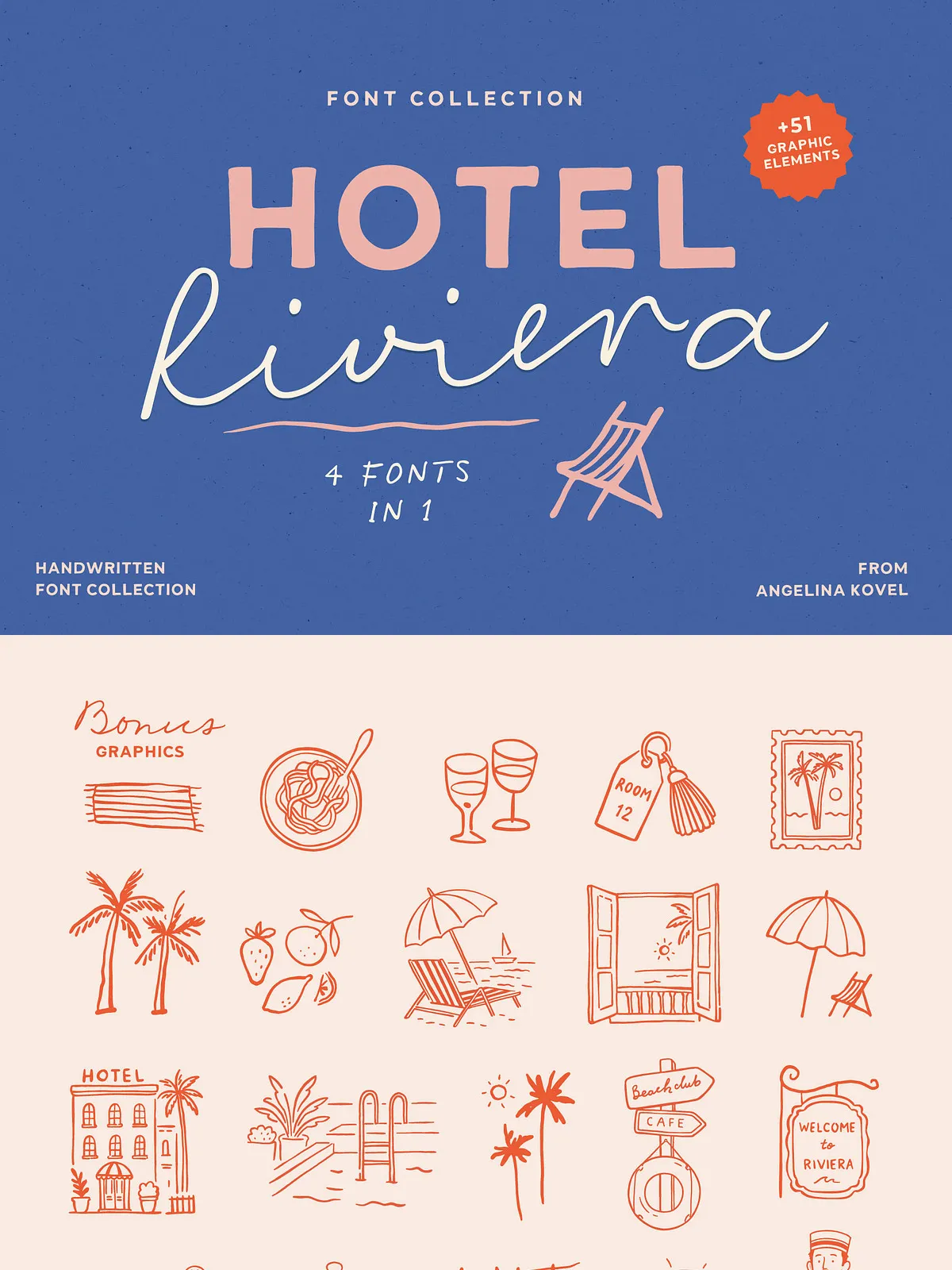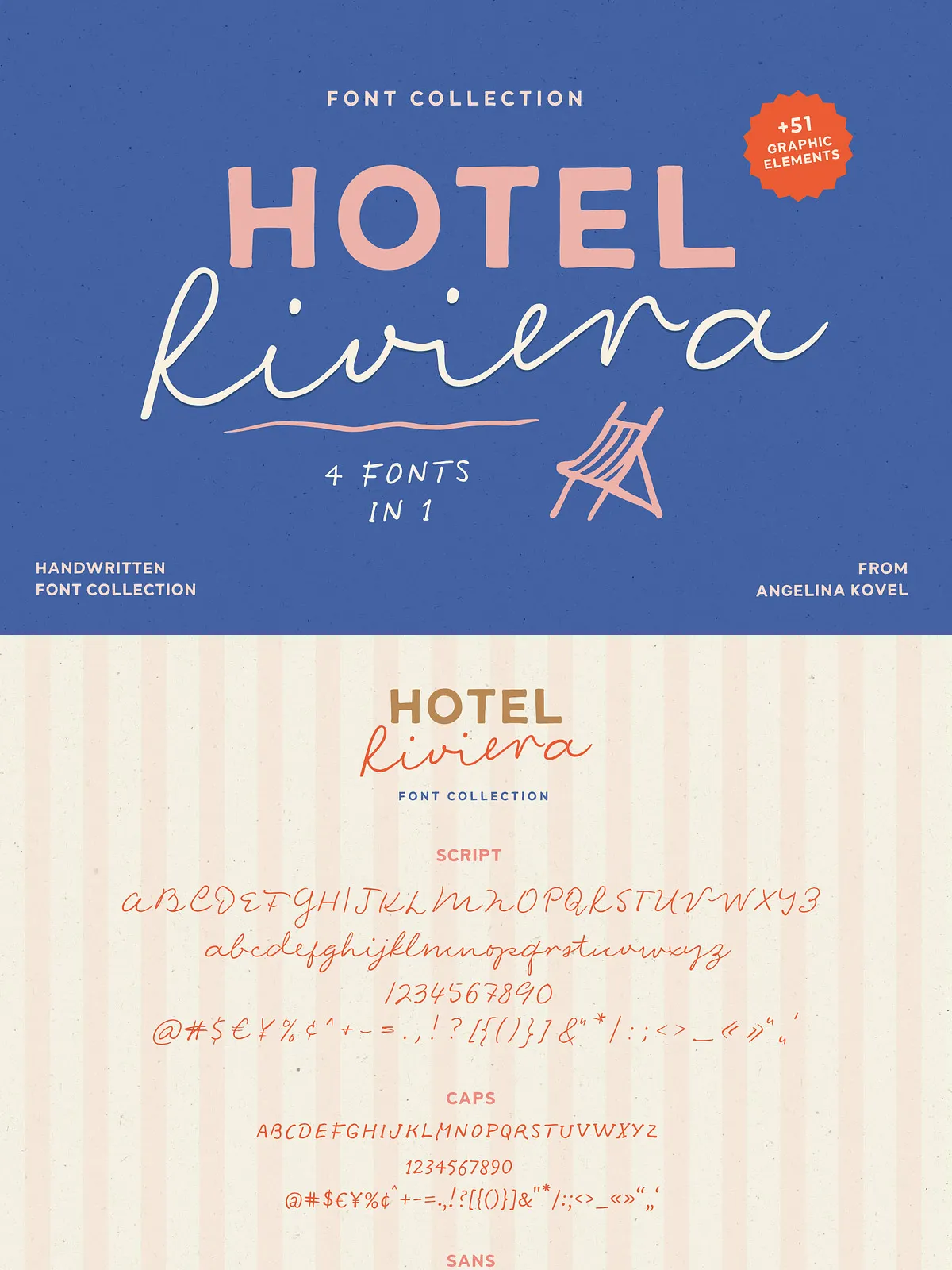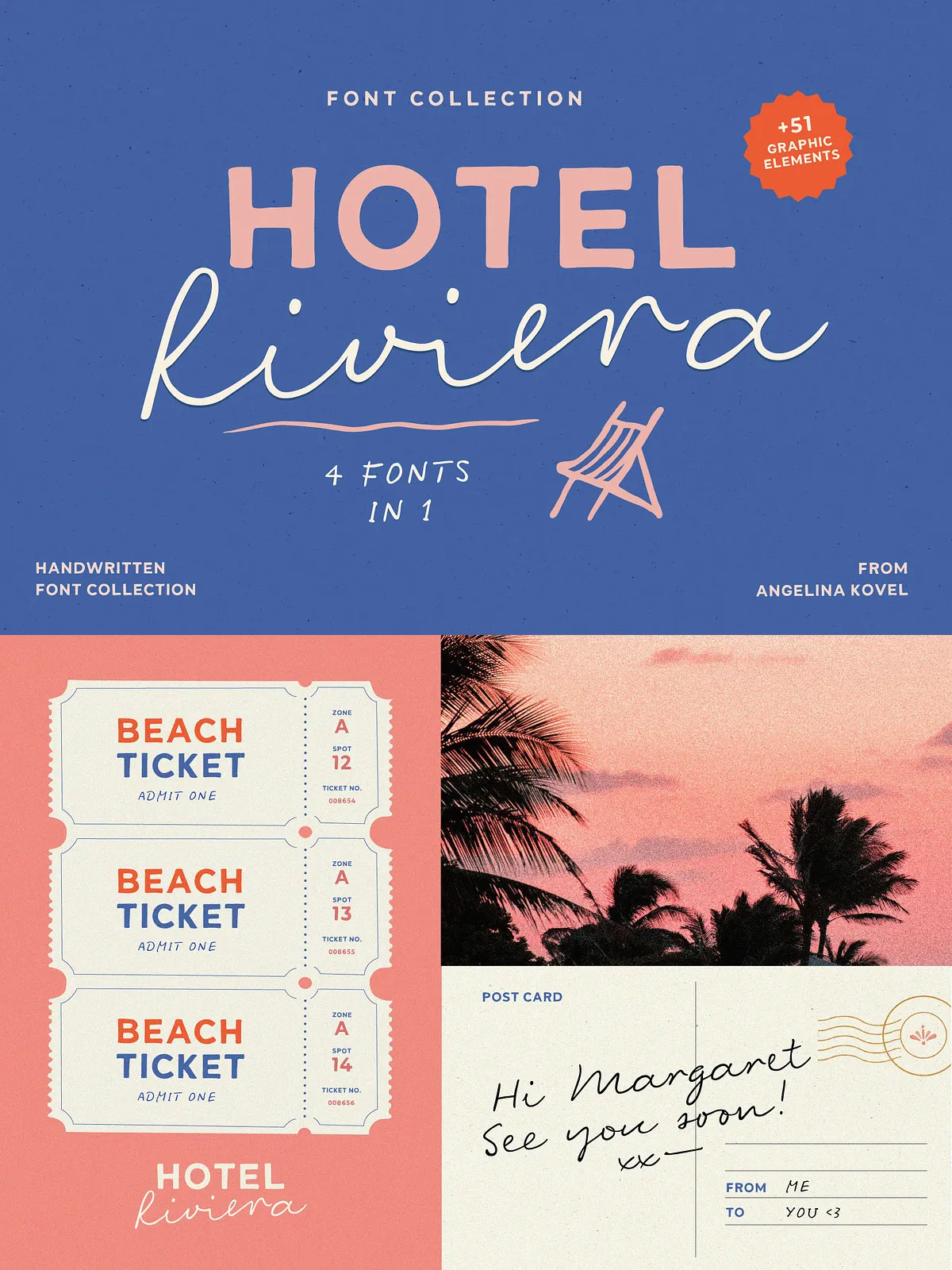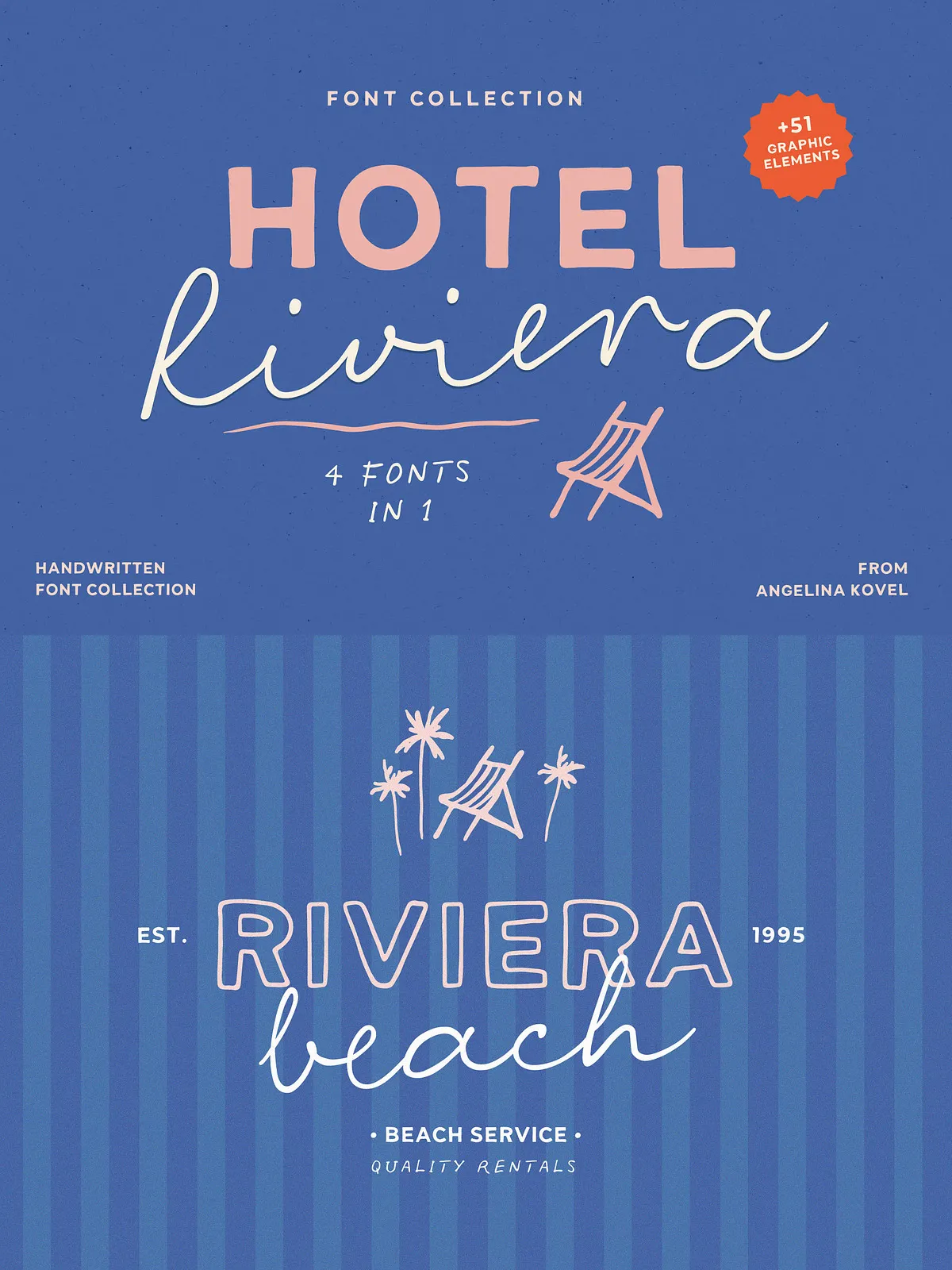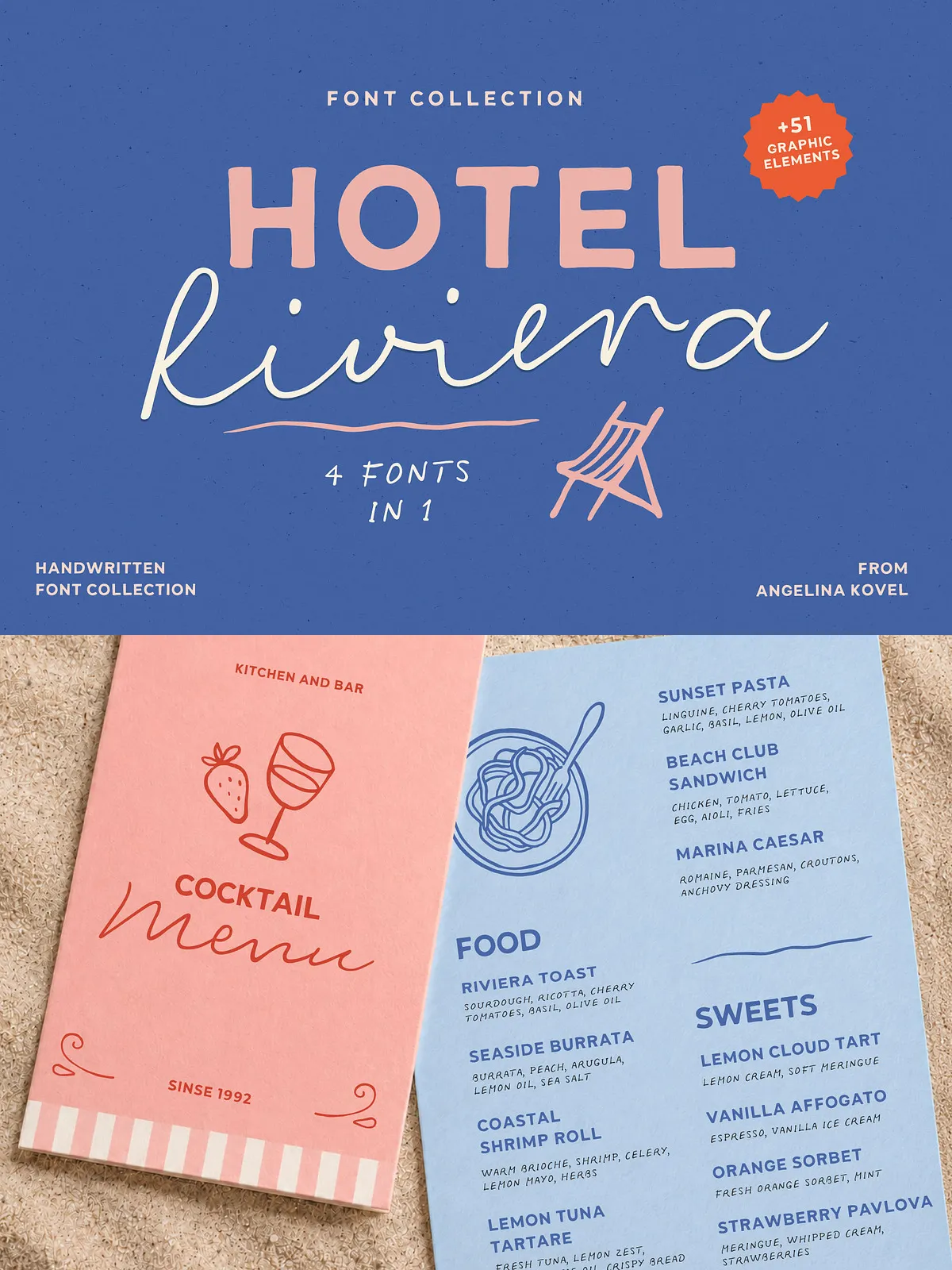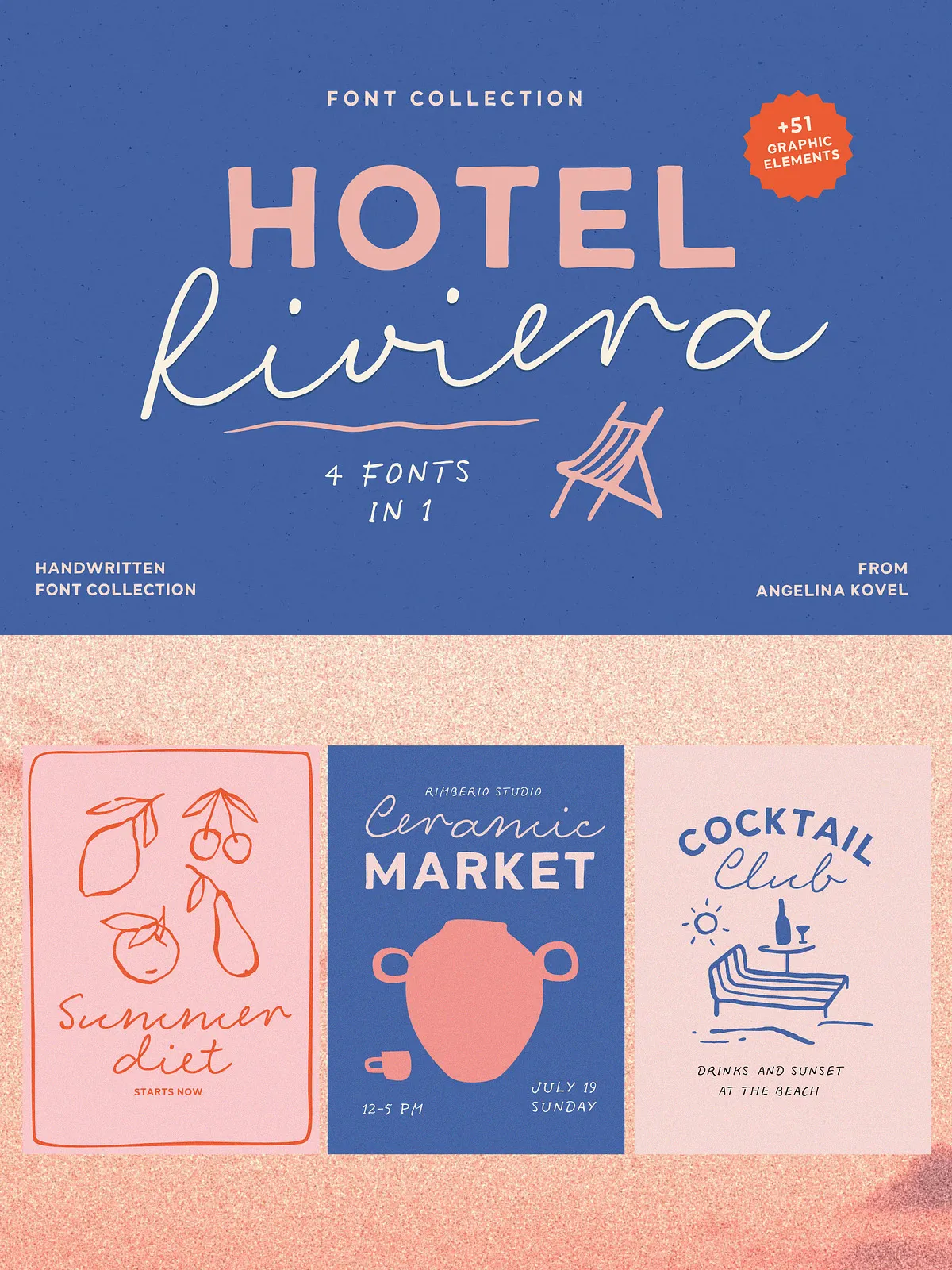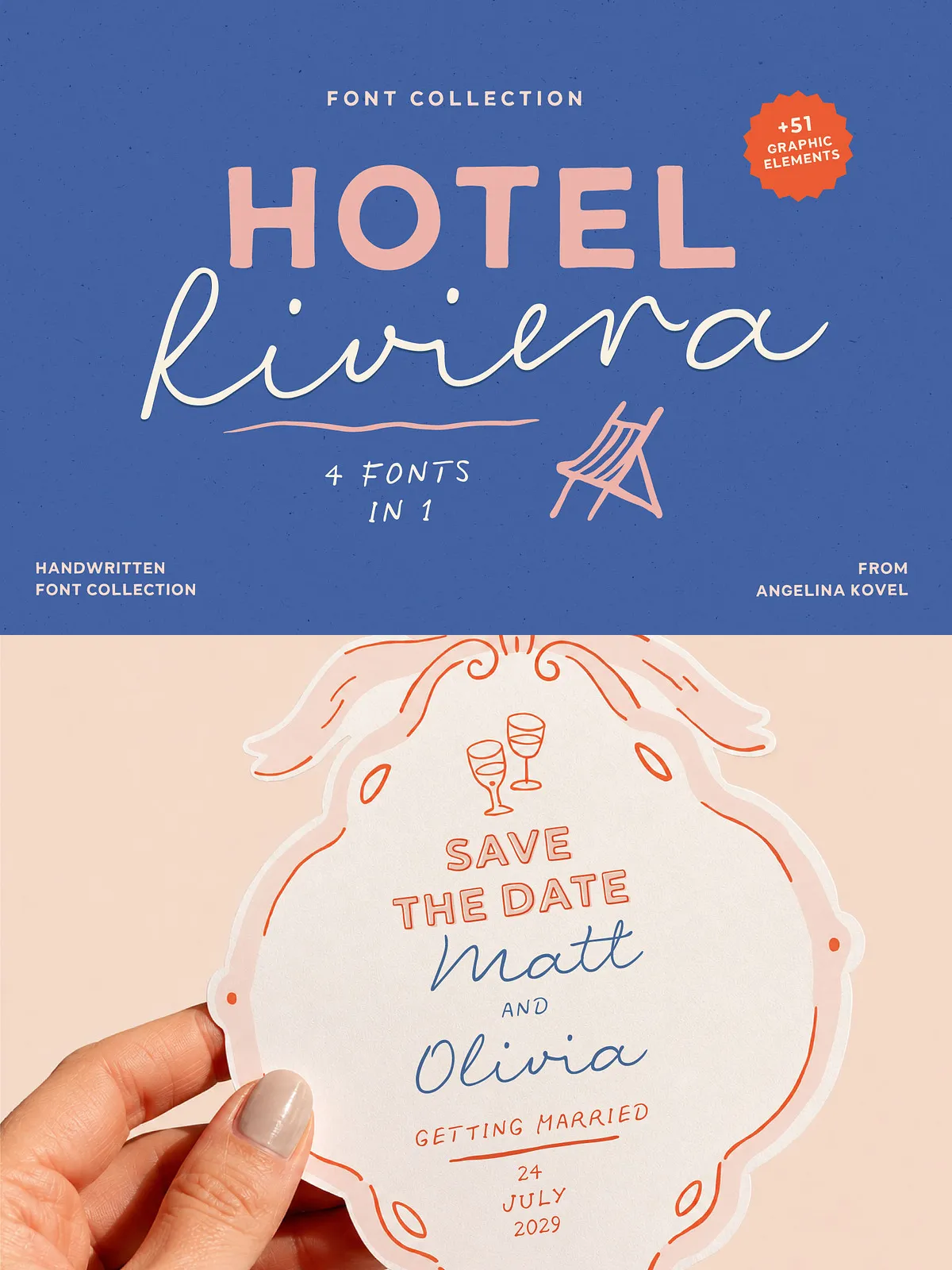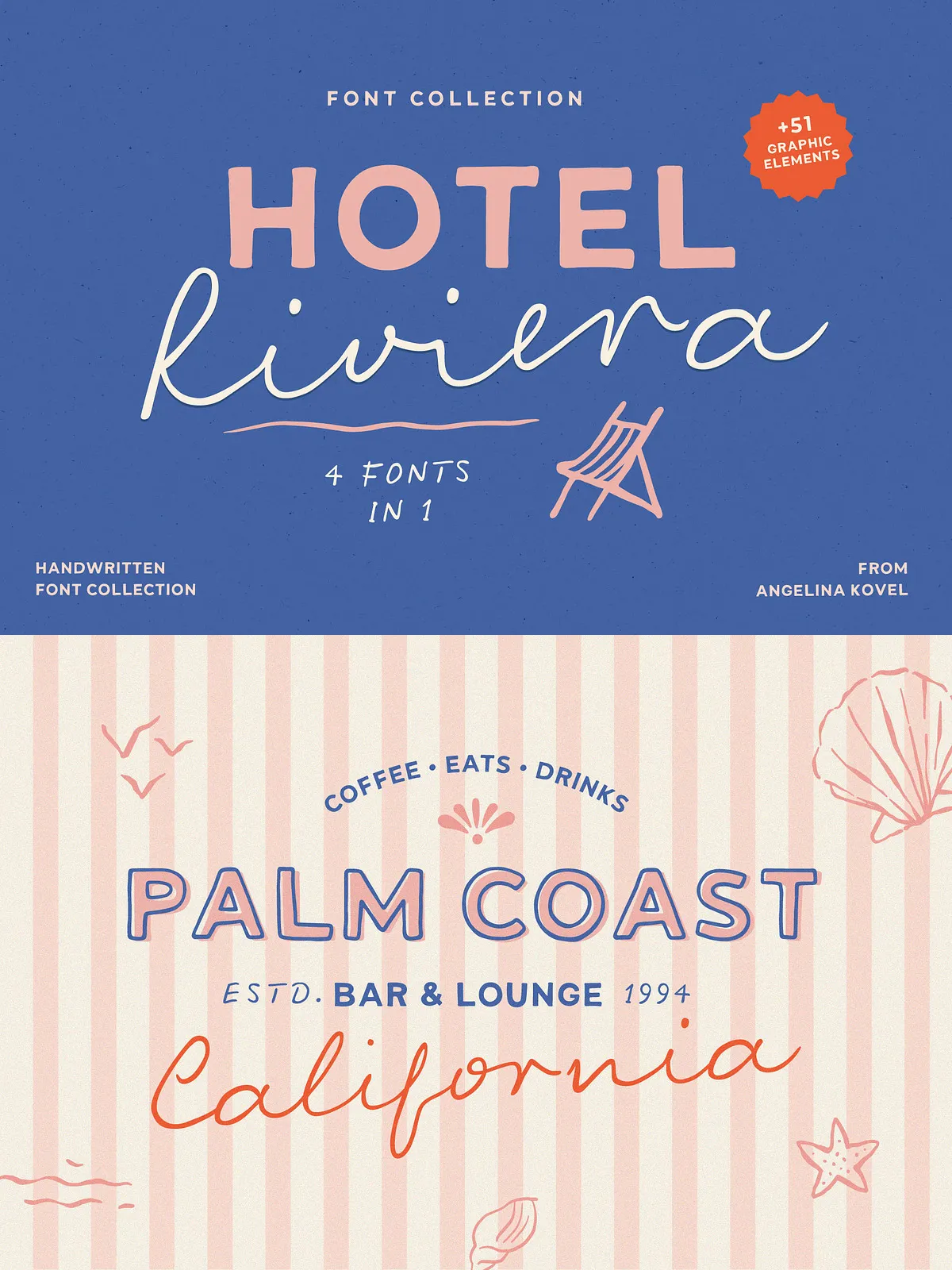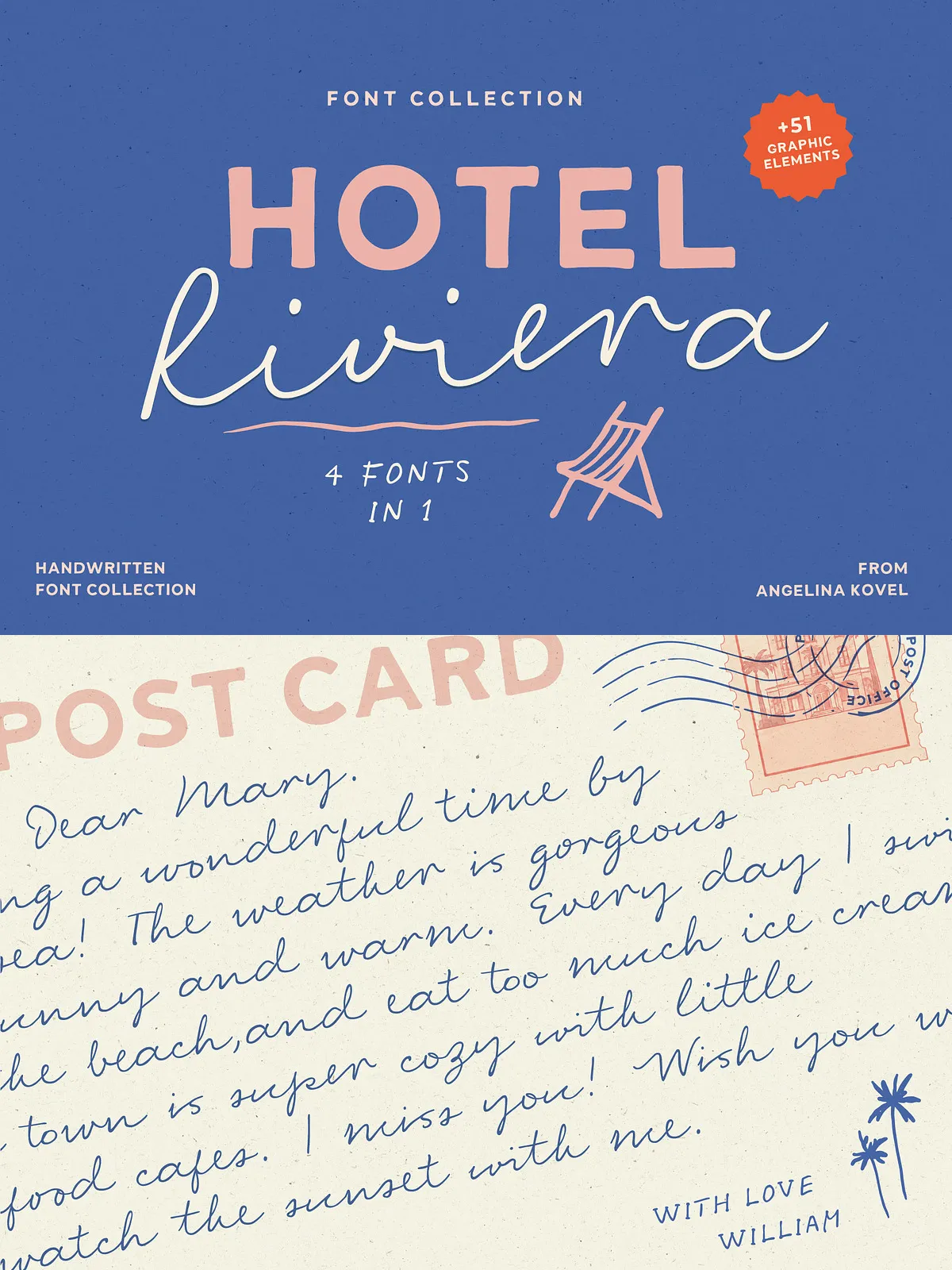
Hotel Riviera brings a bright, upbeat energy to your designs. Built to evoke fun and happiness, this family blends nostalgic charm with modern versatility. The collection includes a flowing script, bold display caps, a clean sans, and a distinctive outline sans, paired with 51 decorative PNG elements for instant styling and composition. Use Hotel Riviera to craft memorable book covers, cheerful greeting cards, expressive logos, vibrant posters, and any design that needs a warm, optimistic voice.
- Hotel Riviera Script.otf — a lively, fluid script for headlines, signatures, and friendly taglines.
- Hotel Riviera Caps.otf — a bold, rounded all-caps display that reads clear and confident at large sizes.
- Hotel Riviera Sans.otf — a clean supporting sans that pairs well with the script and caps for body copy and captions.
- Hotel Riviera Sans Outline.otf — an outlined version of the sans for decorative stacking, layered headlines, and poster-style effects.
Design Character & Voice
Script: Warm and Expressive
The Script font flows with natural strokes and subtle bounce, creating approachable headlines and heartfelt messages. It reads as handcrafted and energetic, making it ideal for invitations, greeting cards, and brand moments that need personality.
Caps: Bold and Cheerful
The Caps style anchors layouts with playful weight and clear presence. Rounded forms and open counters ensure legibility while maintaining a retro, friendly attitude suitable for logos and poster headlines.
Sans & Sans Outline: Clean and Versatile
The Sans supplies neutral support for longer text and UI elements, while the Sans Outline offers decorative contrast for layered treatments. Together they let you control hierarchy and visual rhythm across print and digital formats.
Establish Clear Hierarchy
Use Hotel Riviera Caps or Script for primary headlines. Pair the Sans for body copy to preserve readability. Use the Outline sparingly as a layered accent over a solid fill or behind imagery to create depth and retro poster effects.